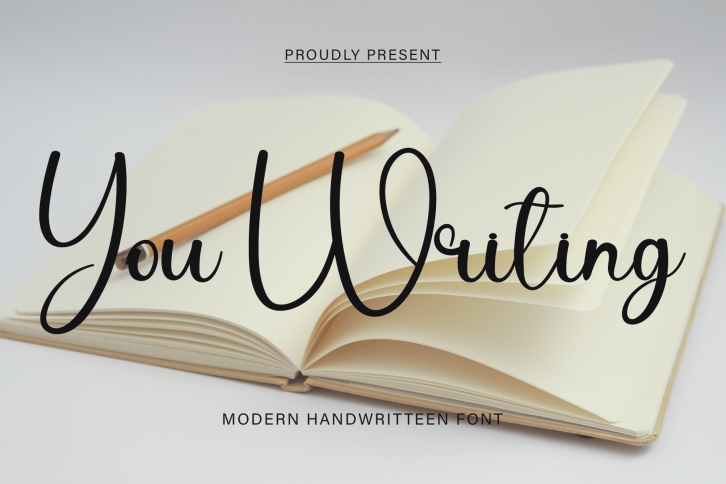
You Writing is a slim and delicate handwritten font. Dainty and joyful, this font will be ideal for writing wedding invitations, cards, or any other design that may need a romantic, personalized touch!